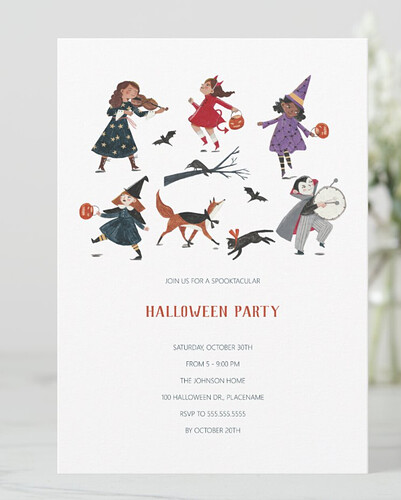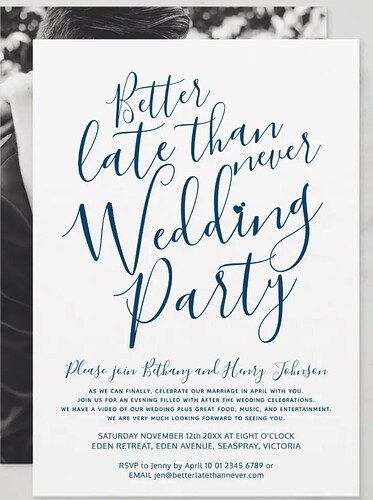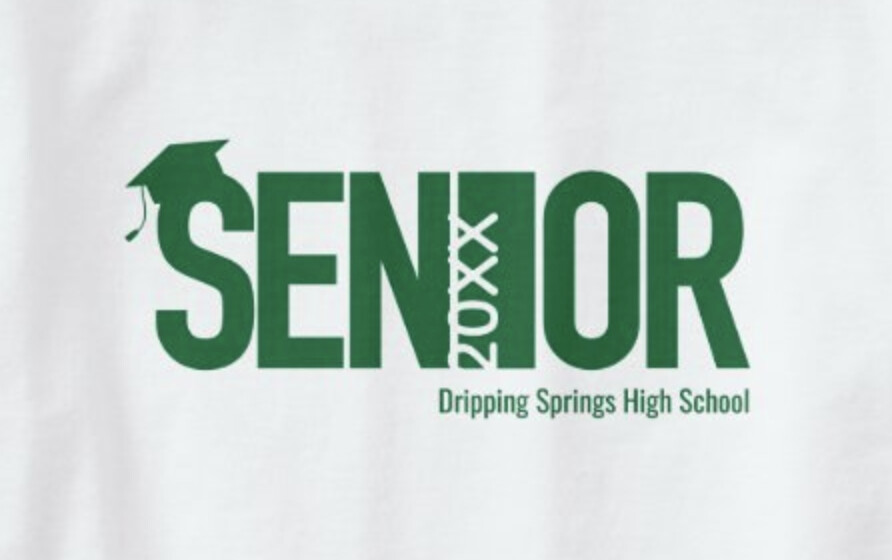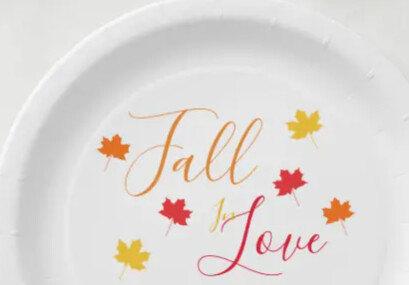
Took me a minute to figure out what happened here but the Blooming Elegant series of fonts has gone away and the numbers here were changed to the new Dongle font. Moved the entire text box so it doesn’t align correctly anymore.
I’ve already gone through and corrected the location and submitted to replace, but I’m in trouble if this is what’s going to happen with the font replacement as I used this particular font a lot.
I am worried about my use with this font, too. I am in a situation where I have verticle text on some things and since this particular type of blooming elegant font was off center to begin with I would have to adjust it so it would show centered on my actual design. The problem I see is the font that is being used to replace it is naturally centered so it’s throwing the text off center. So sorry you used this extensively. It will be so much work for me, too, to fix these particular fonts.
They are slowing coming in. The good news most are looking ok. However this is one my bestsellers they are all buggered the hearts are all out of wack and the fonts on some must be wider so weeks of work opening and sorting this out what a nightmare!
I have encountered some problems as well with placement / location where the Morgana’s font replaced Blooming Elegant Script. I found this in my products with Blooming Elegant Script in vertical text, so I wonder if this problem is only happening in vertical text. Please see the image below with an example.
I was very careful while designing this menu to leave enough space so all letters will fit without going over the last name, and now this font replacement messed it all up!
I found a second issue, after changing the text in the template text box several times the decorative tail changed to a very long tail that no longer fits in place and modifies the design completely. See example below:
Many brides order these menus in batches, now they won’t be able to complete their menus to match, and when they come back to complete their order they will find out that the name tail is not working properly after a few tries!
Can we PLEASE have the ‘blooming elegant set’ back!!! It was the sans serif font I used for almost all my invitations and it’s replaced by ‘open sans condensed light’ and it looks not good, the blooming elegant font was more bold and playful!!
Hi everyone, as an update, great news, it seams that the swash (decorative tails) at the end of the names on my menus has been fixed (issue #2). Even after editing the name several times, the name is displayed correctly with a short swash at the end. Not sure if the issue was fixed in all products across Zazzle though. Since there was no response from Zazzle here on the forum, I did end up sending an email to Zazzle, letting them know about the problem I was having with all my menus, with links to each one of them so they could assess them.
Unfortunately, Issue #1 with the location of the text, has not been fixed yet. I’m wondering if we are expected to make the adjustment ourselves and “replace” each product, one by one. Has anyone got the text location fixed by Zazzle? Or are you all fixing and replacing each product yourselves?